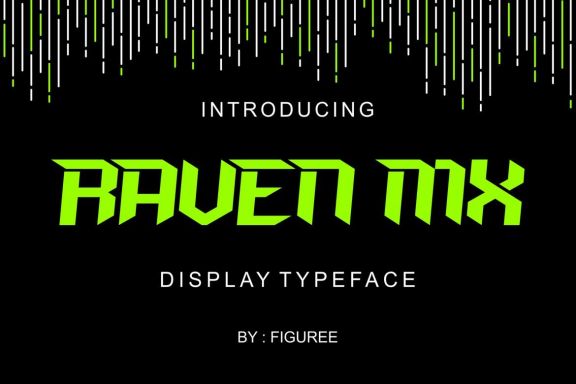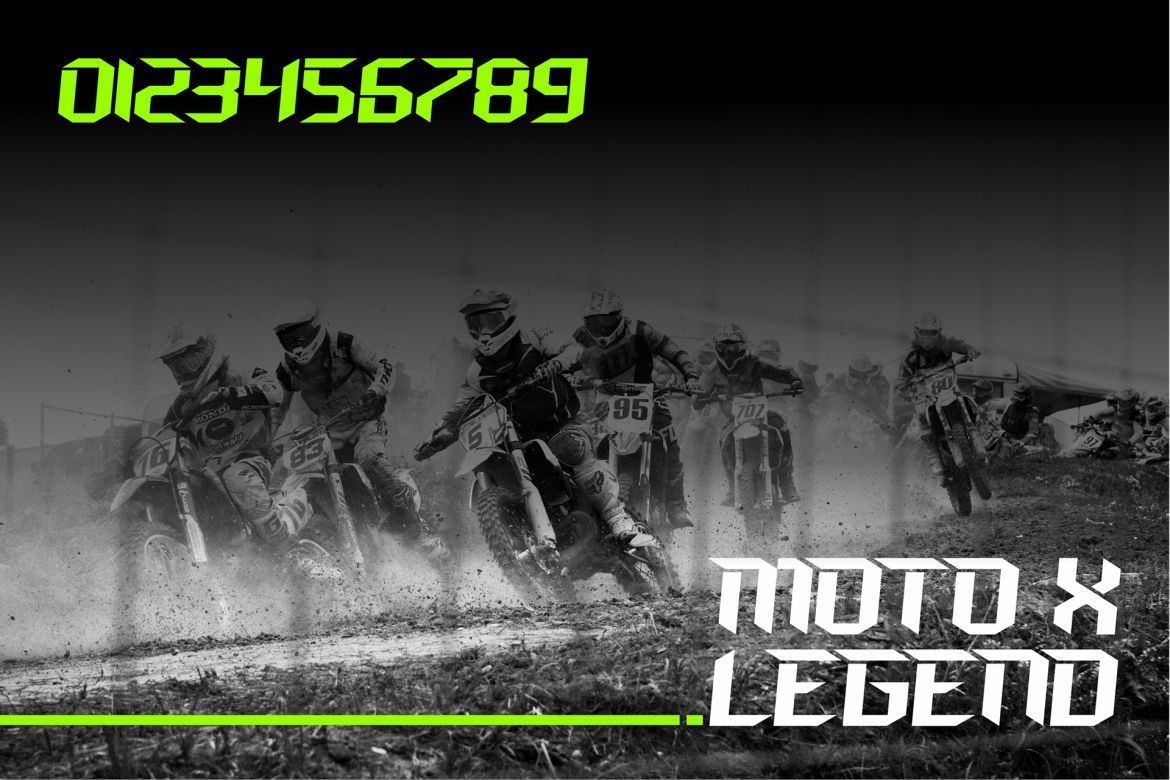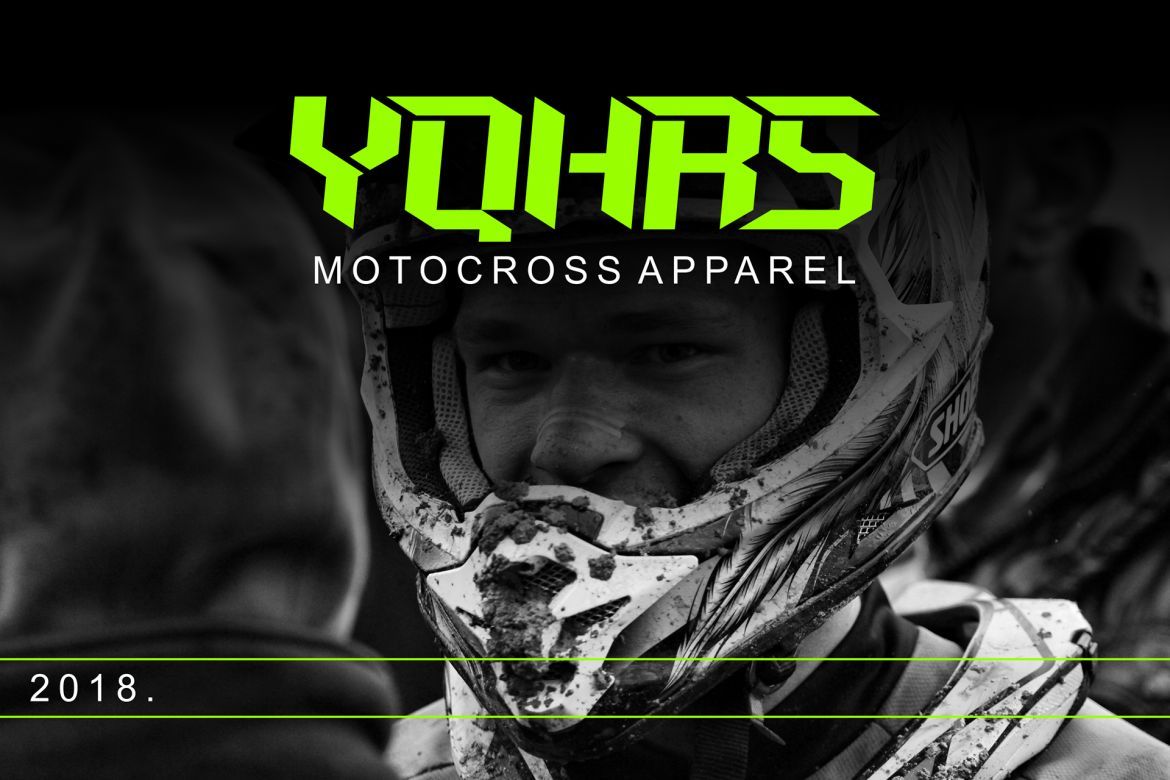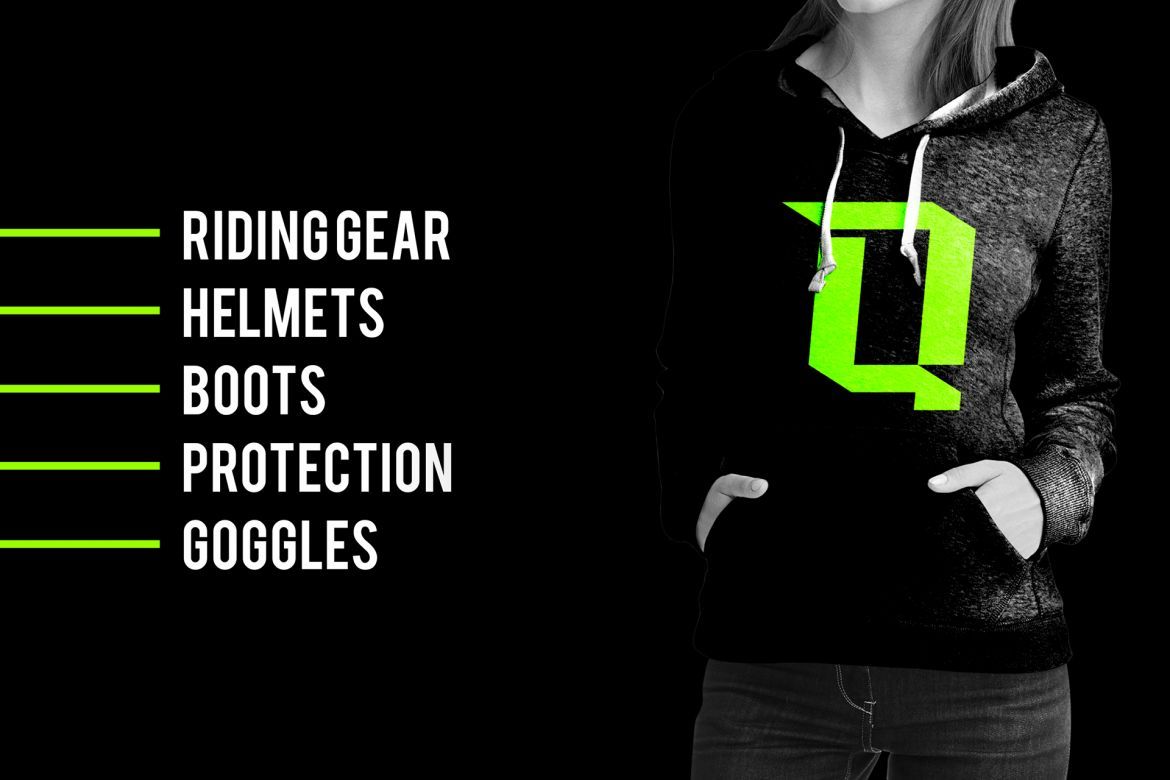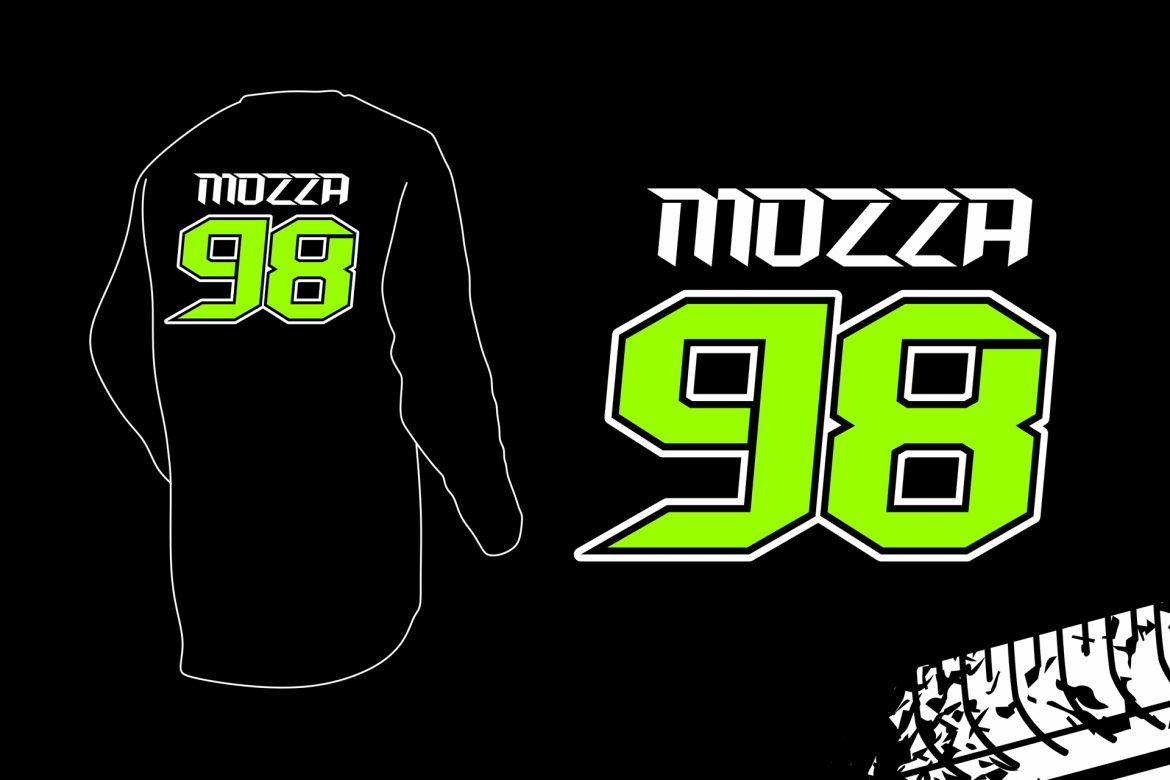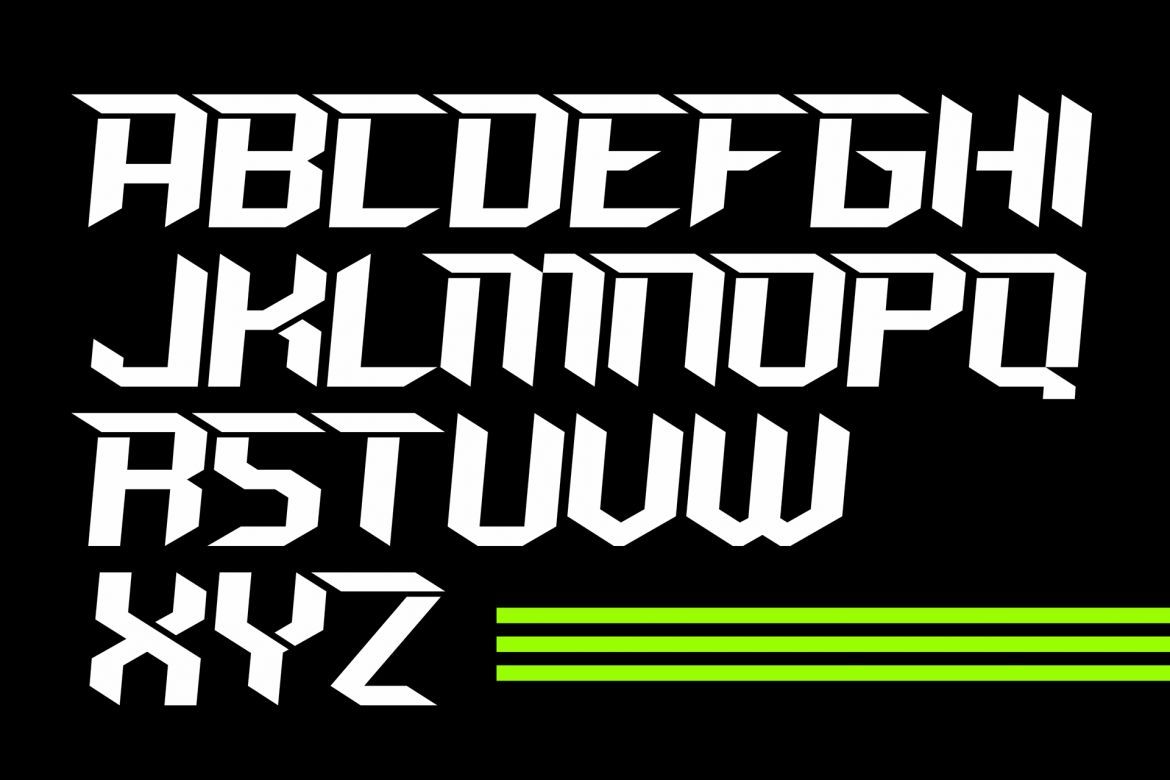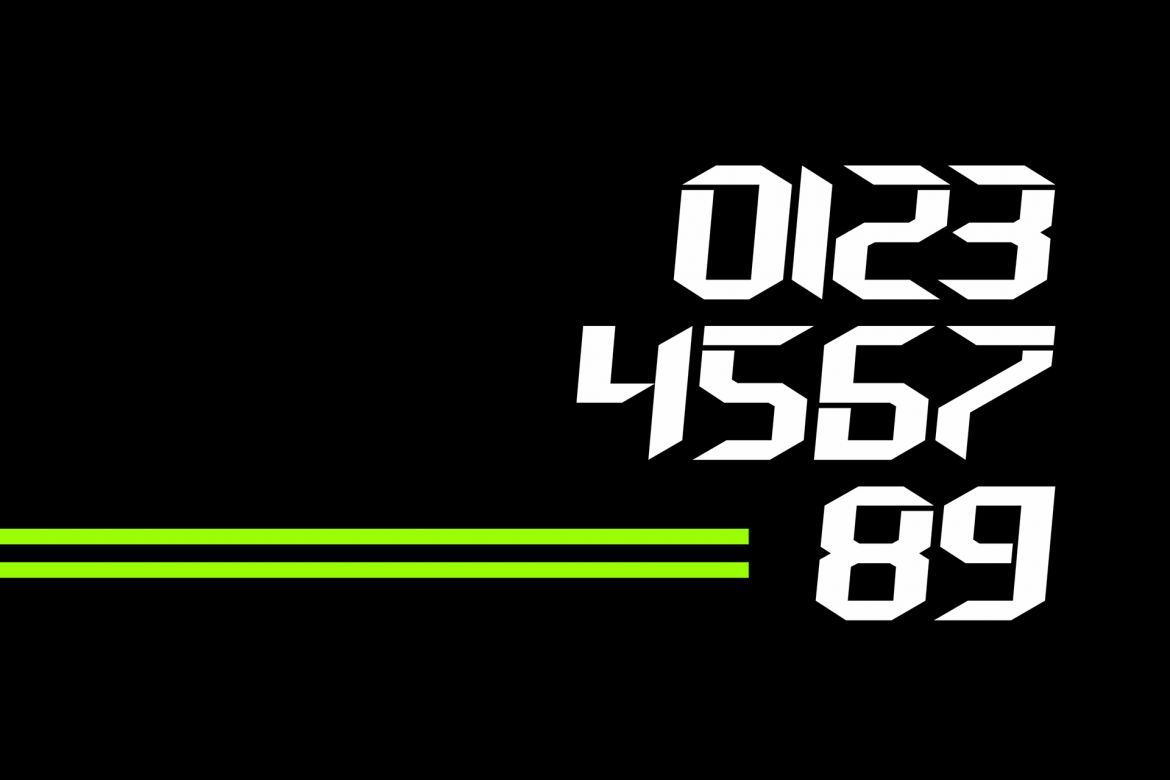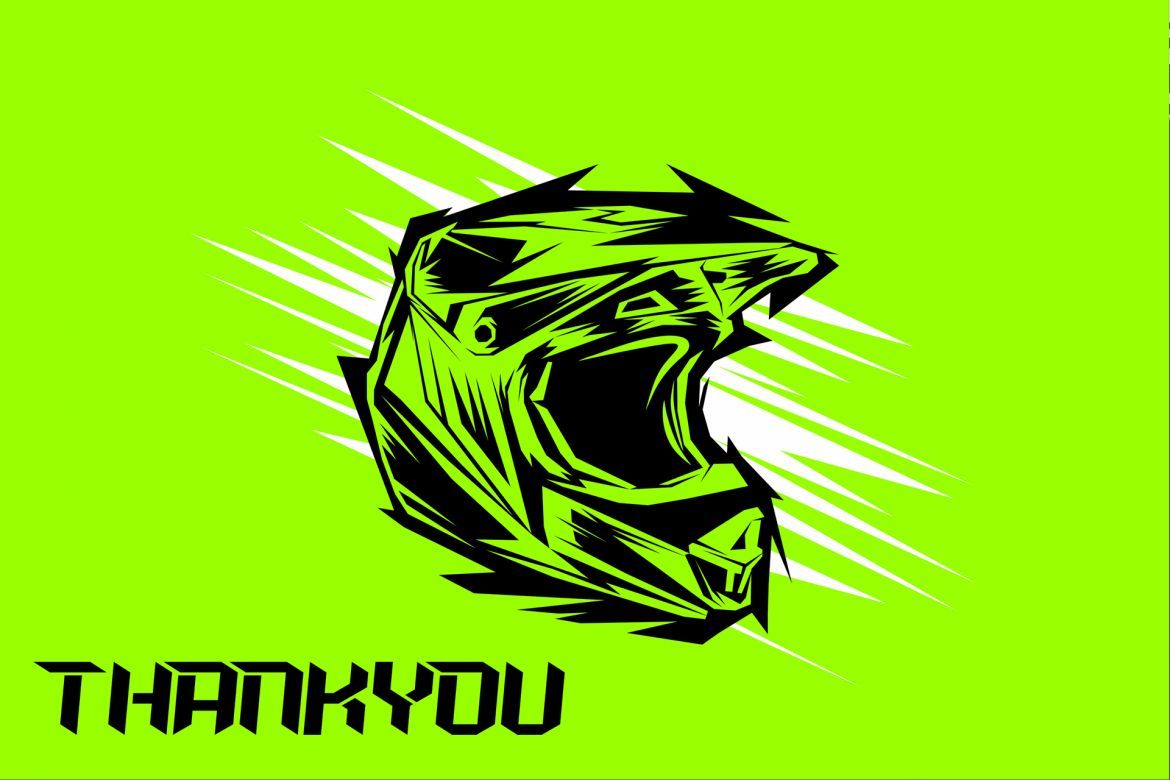
Raven MX Font
The Raven Mx is a striking display font. Its bold letters are perfect for logos, titles, clothing lines, and much more!
• perfect for logos, titles, clothing lines, and much more
• striking display font